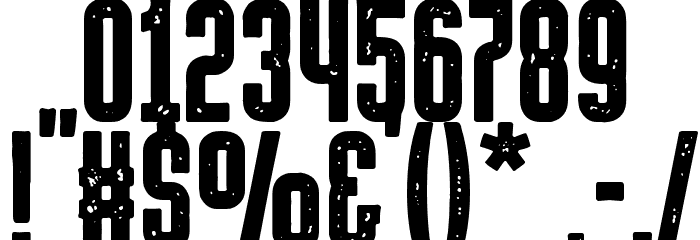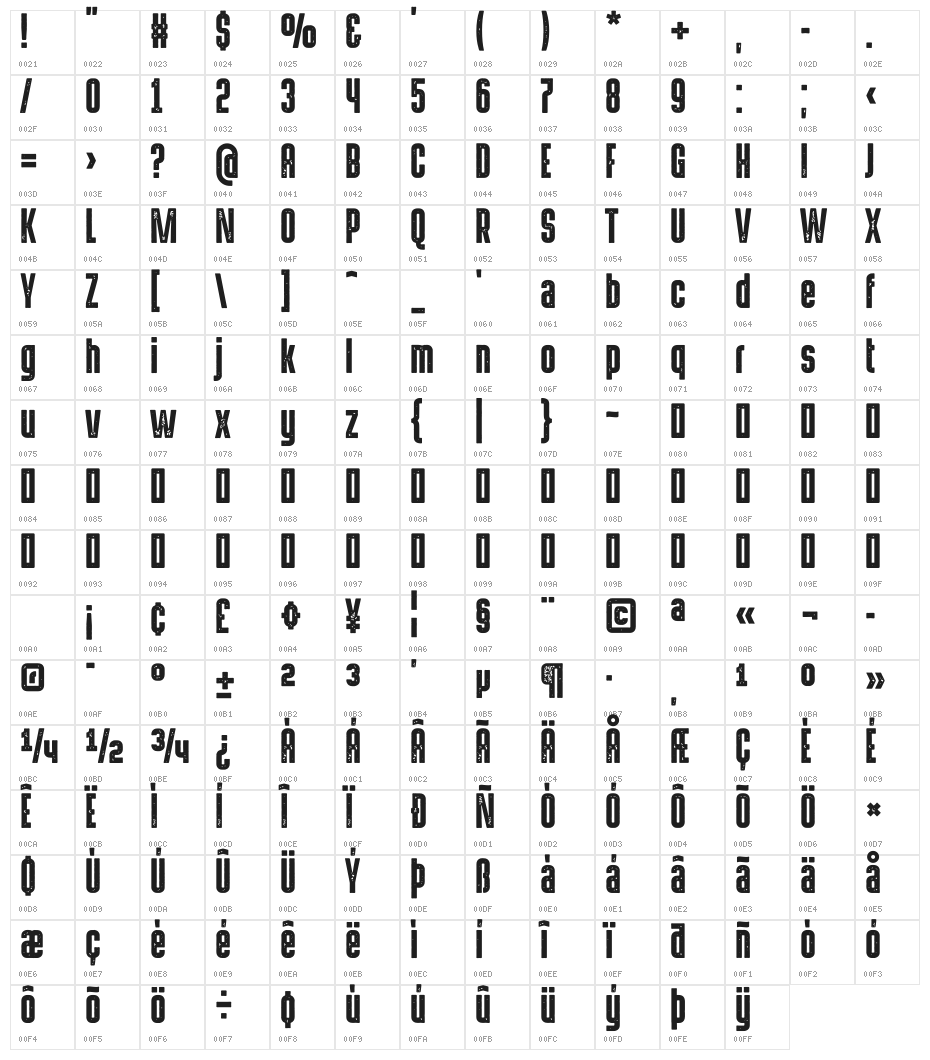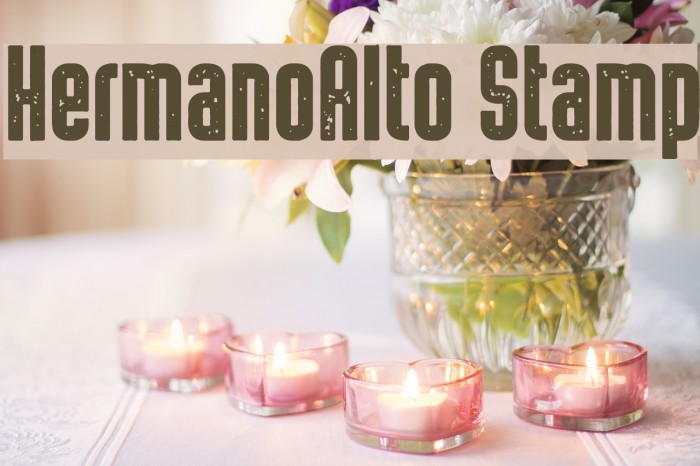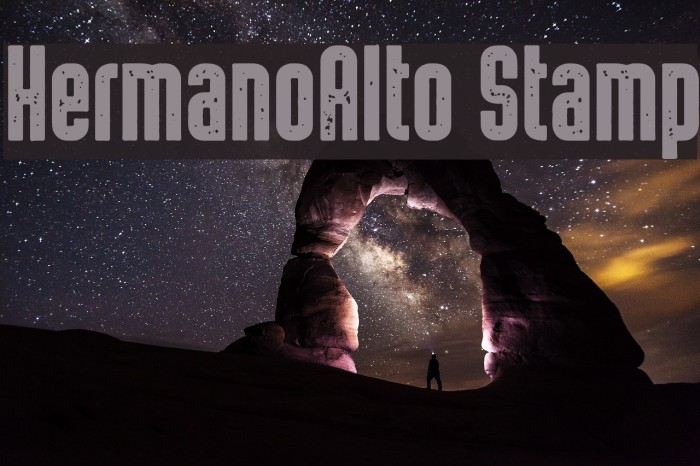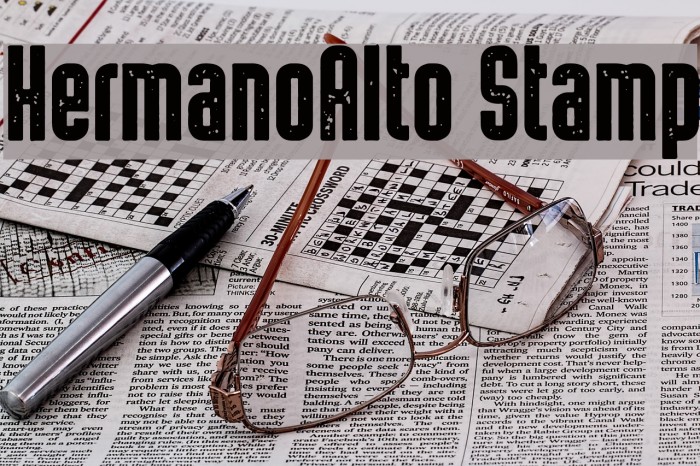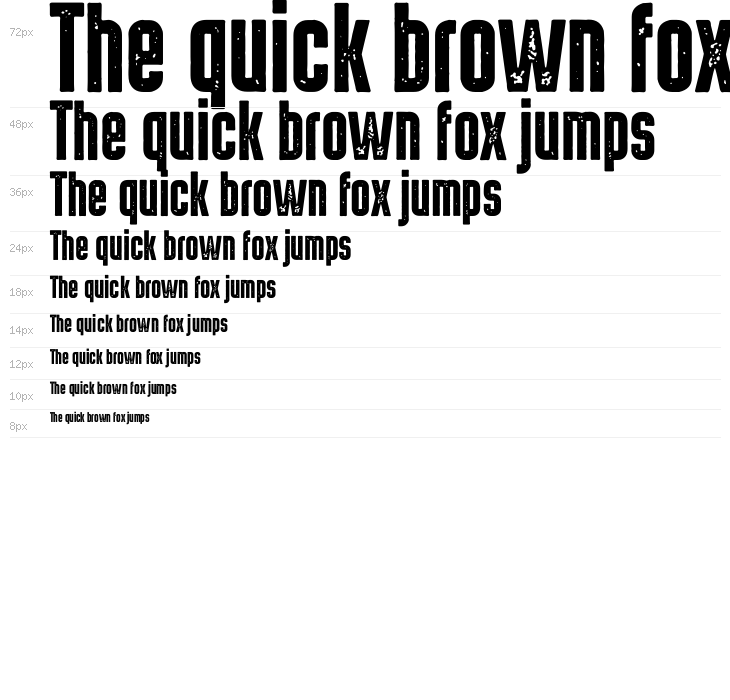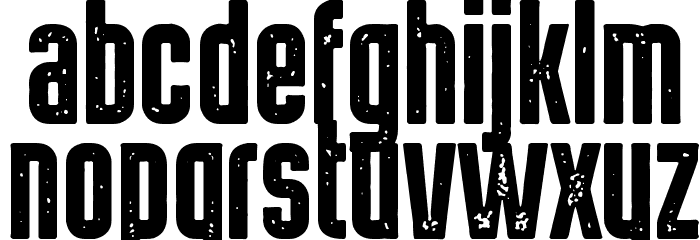
HermanoAlto Stamp Font
HermanoAlto Stamp Description
This font features a bold, distressed style with a vintage, stamped appearance. The characters are tall and narrow, giving a condensed look that is both striking and impactful. The texture is reminiscent of worn-out ink stamps, adding a rugged and industrial feel. The uppercase and lowercase letters maintain a consistent height, while the numbers and special characters complement the overall aesthetic. This font is ideal for projects that require a strong, eye-catching presence with a touch of nostalgia.
Overall StyleVintage
Proposed ProjectsIdeal for posters, branding, packaging, and any design requiring a vintage or industrial touch.